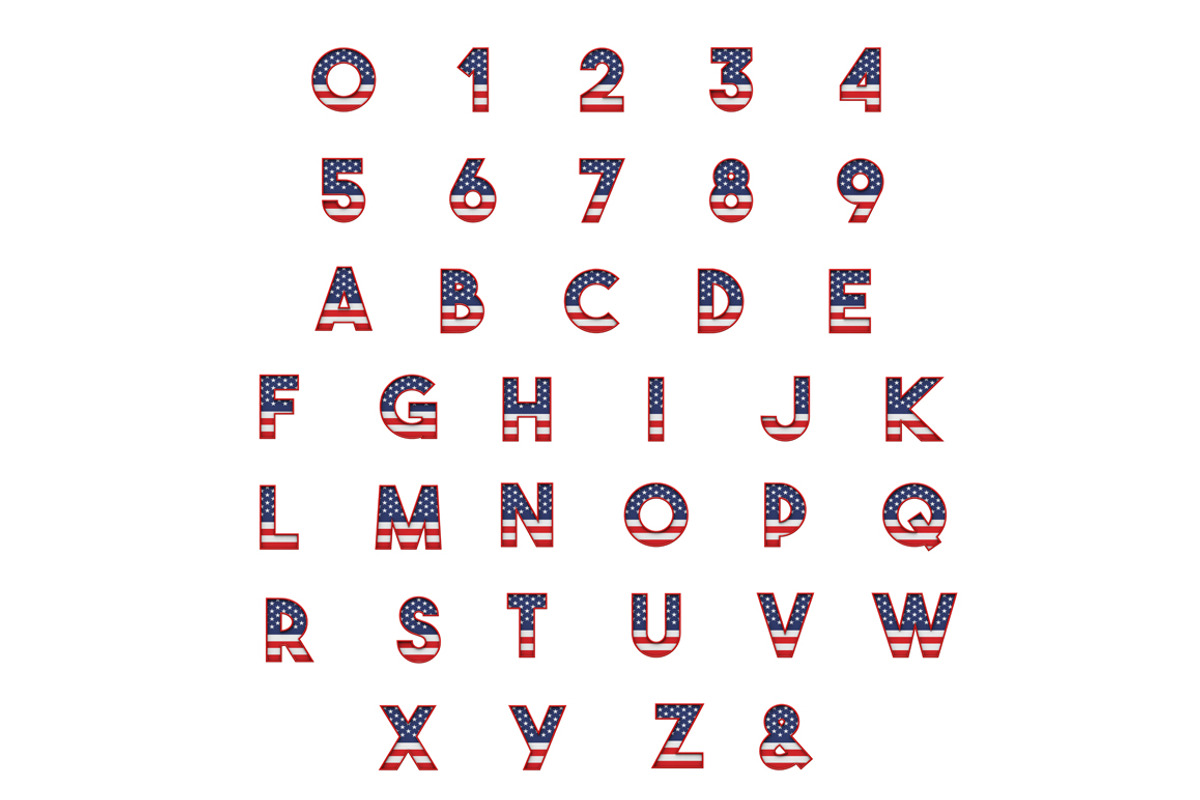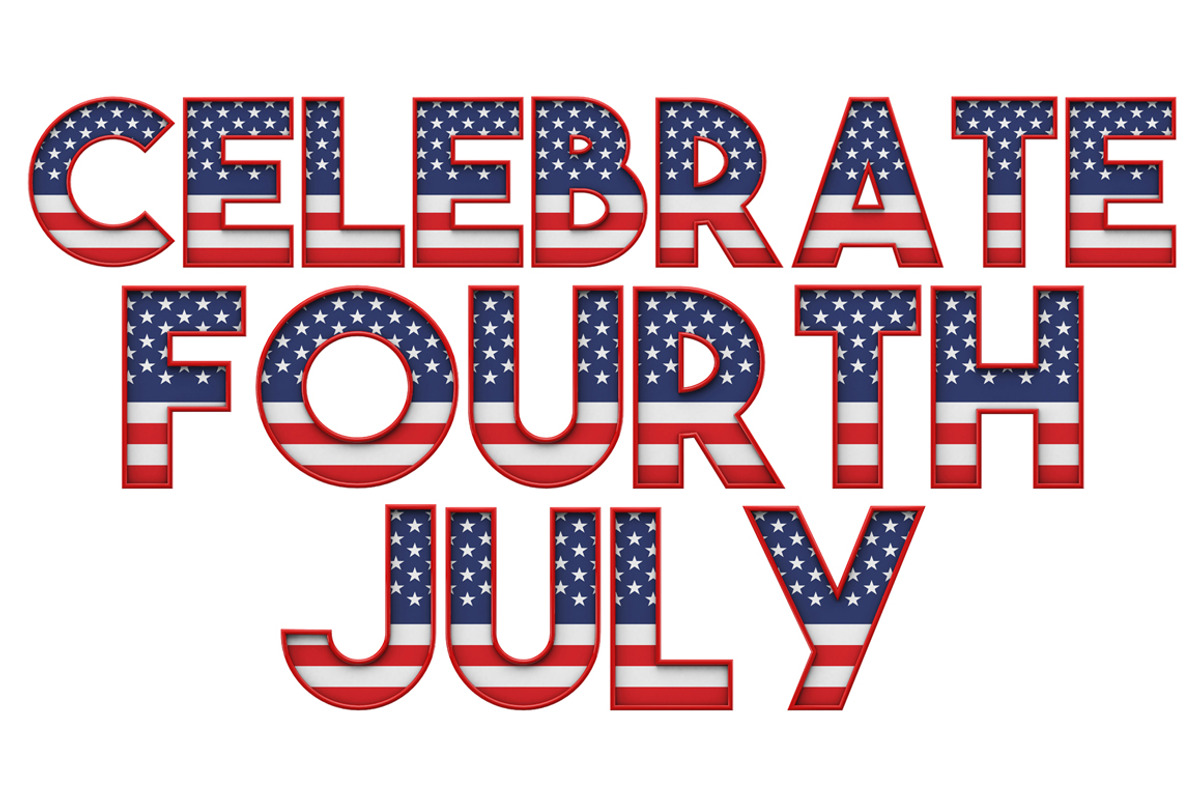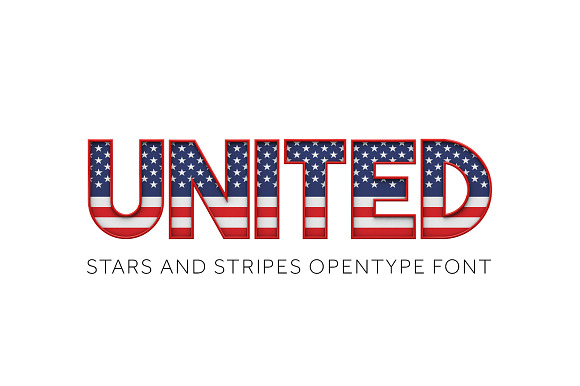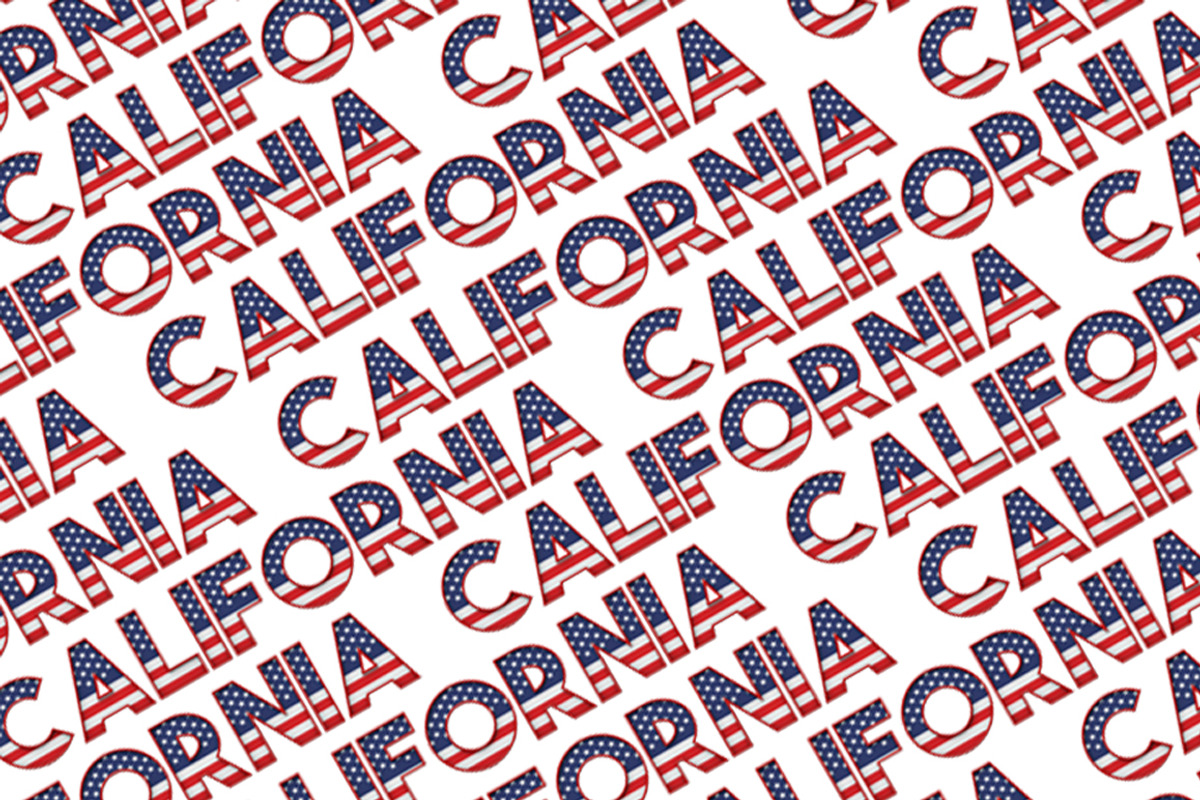
UNITED - STARS & STRIPES COLOR FONT
UNITED colour opentype font
UNITED is a bold stars and stripes 3D font. Designed and made in 3D and transformed into a colour opentype font. Perfect for patriotic posters, party invites and all things American! Download and start typing!!